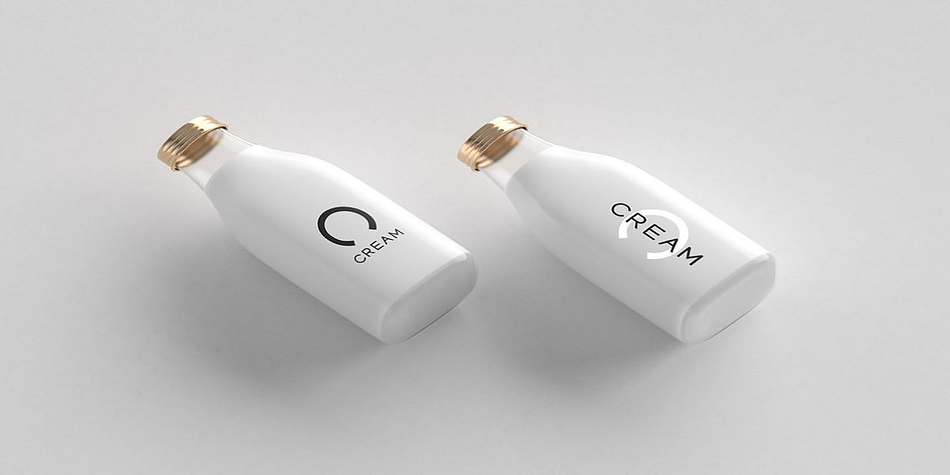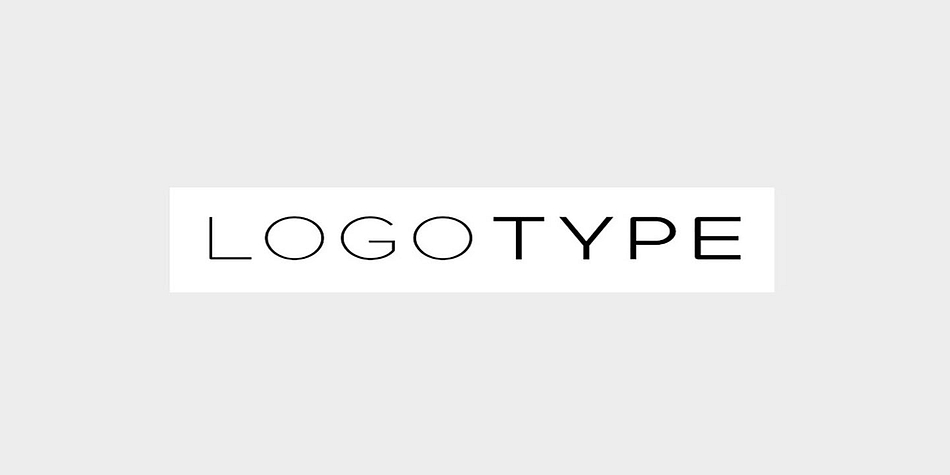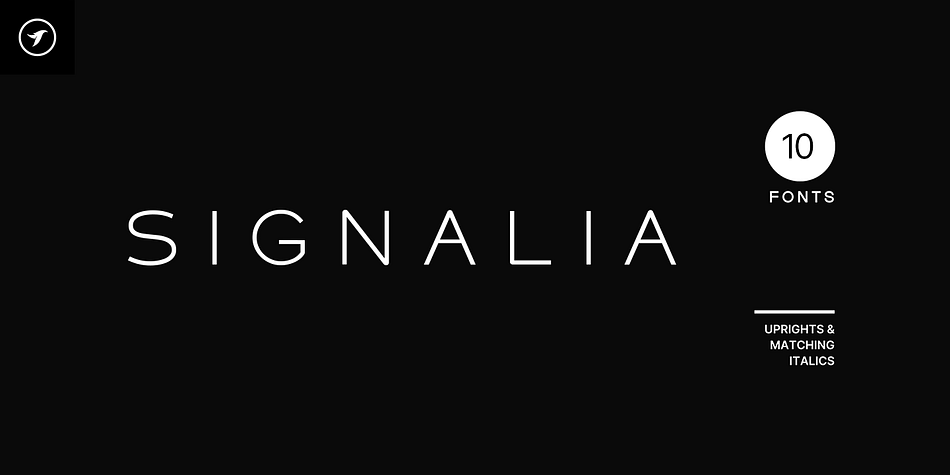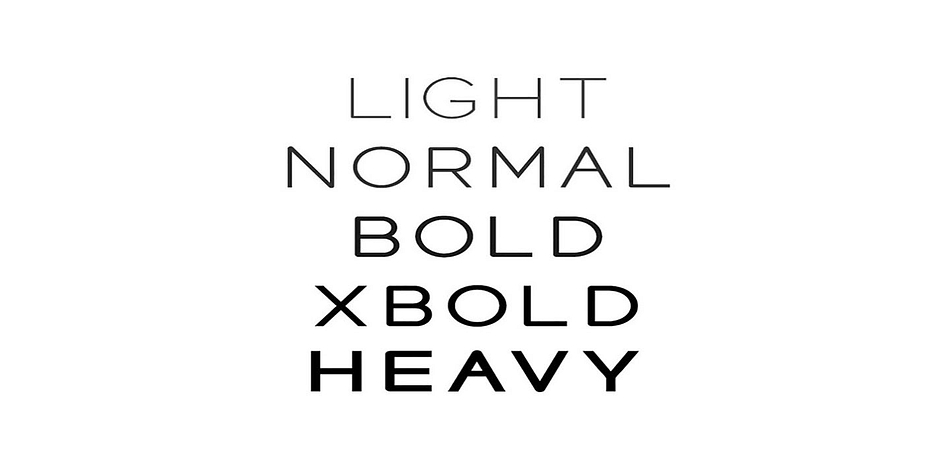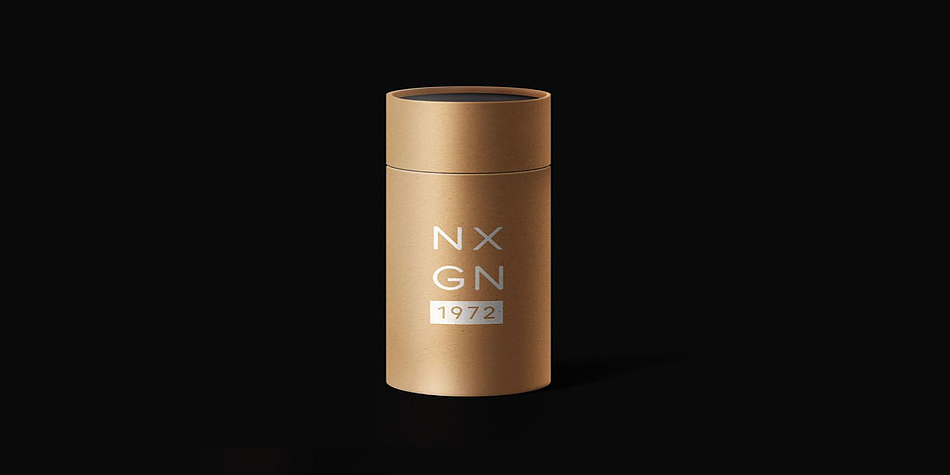
SIGNALIA
SIGNALIA is a display sans font family. This typeface has five styles and was published by Fontastica.
Signalia is a new-age typeface for headlines, big text, branding, logotypes, and display usage. This all-caps typeface is perfect for creating outstanding logos, promotional content, and marketing graphics that can really grab the attention of your visitors. Please see the examples shown above to get an idea about the capability of this typeface.
Signalia comes with 5 weights (Light / Normal / Bold / XtraBold / Heavy). This typeface is all-caps by default. The pack contains OTF, TTF and Web Fonts (all EOT, SVG, TTF, WOFF, WOFF2 everything is included).